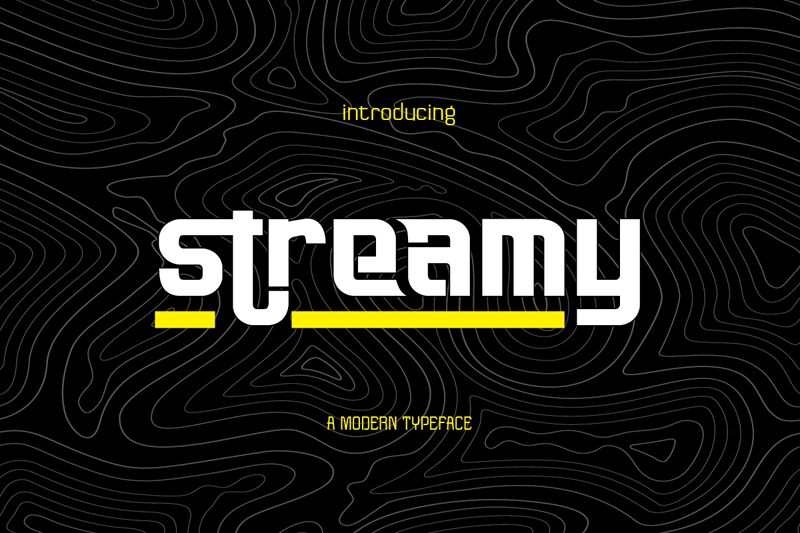
Streamy Light, a creation of Afkari Studio, is a modern sans serif font with a techno touch. Its light weight adds an elegant and refined feel to any project.
With its semi-condensed width, Streamy Light is perfect for website headings and logos, giving them a sleek and contemporary look. This font style is also suitable for digital presentations, creating a professional and futuristic vibe. Whether you're designing tech-related content or aiming to make a bold statement, Streamy Light will effortlessly elevate your visual communication.
Streamy Light
This font is designed by Irhami Razali